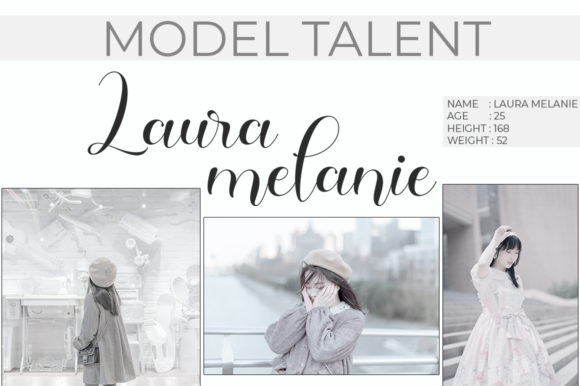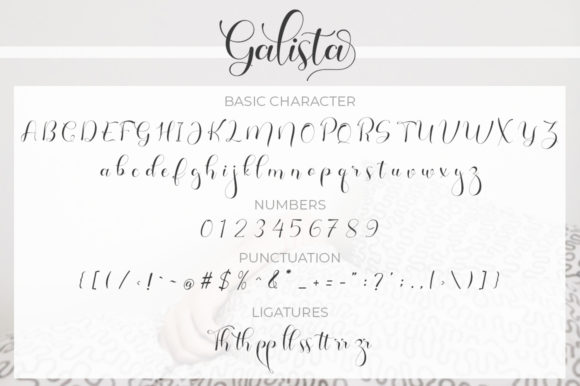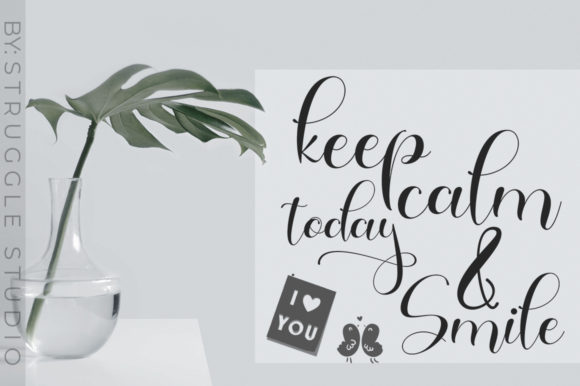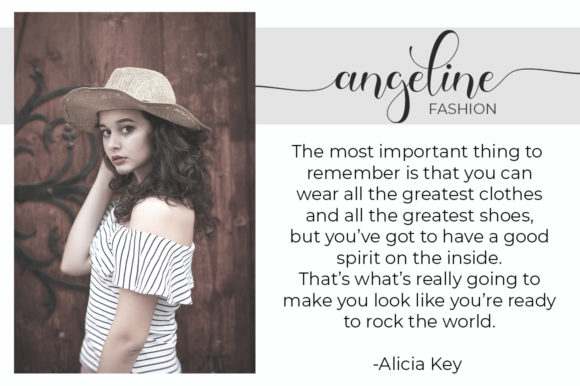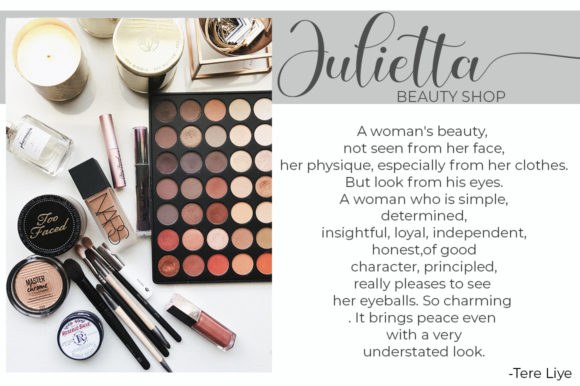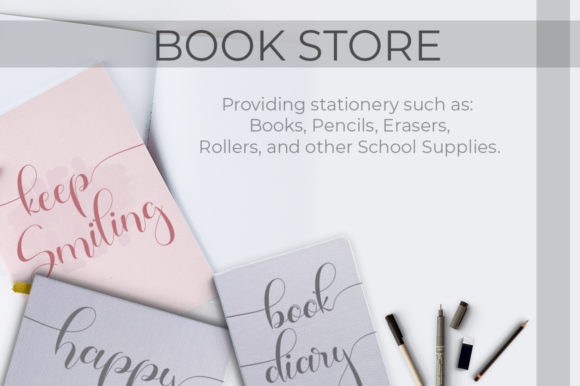
Galista Font
About Galista Font
Galista is inspired by classic typography and brings its own unique style to any design project. It has amazing swashes and ligatures. Galista is the perfect font for making original and outstanding designs.